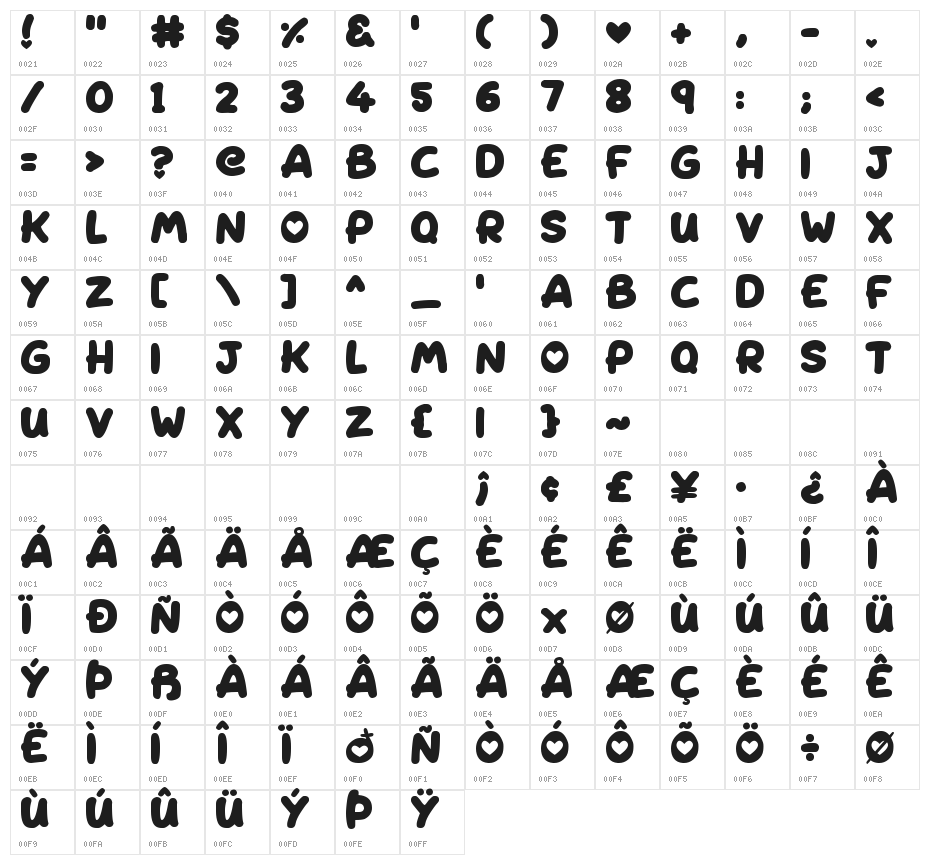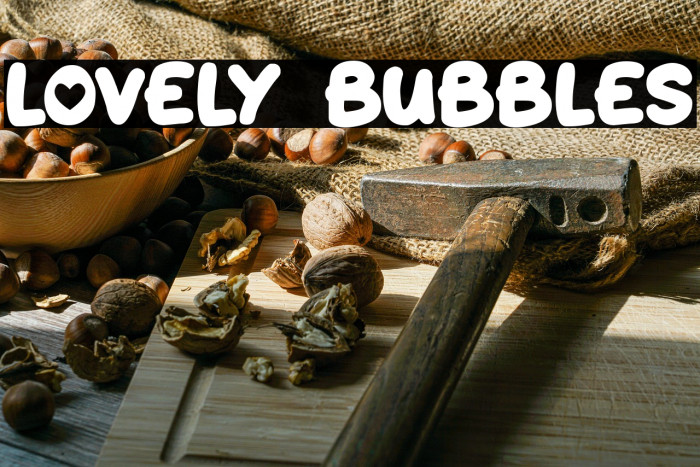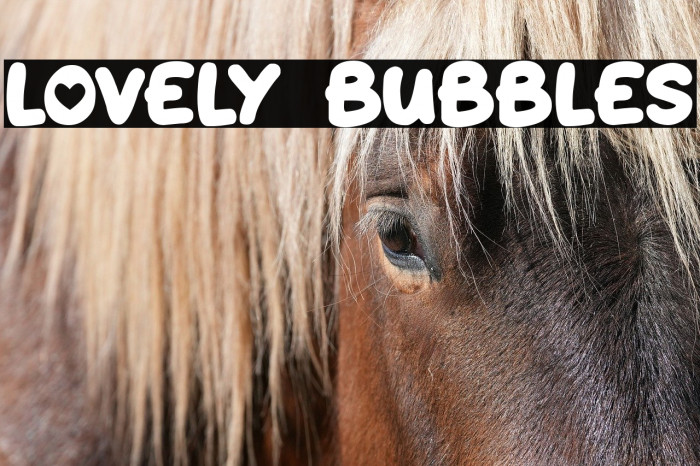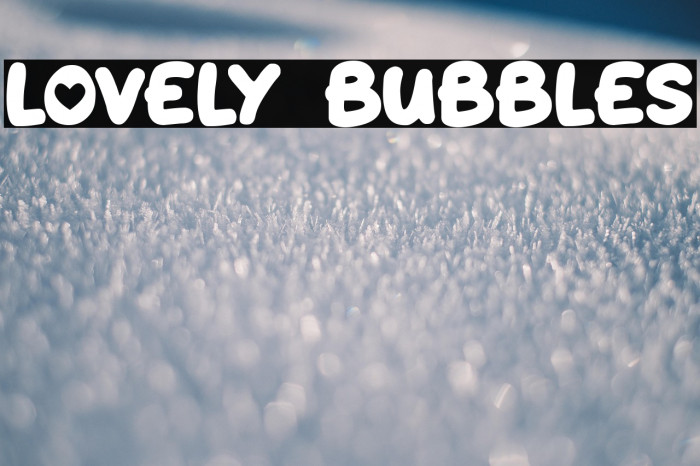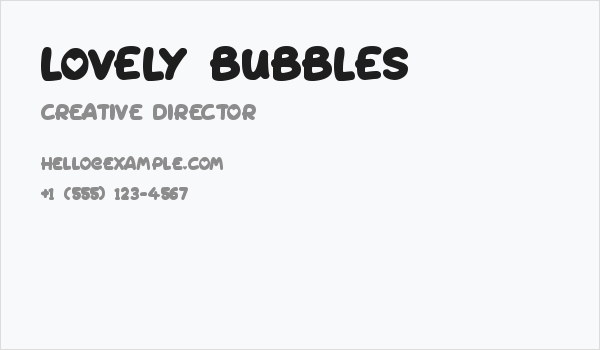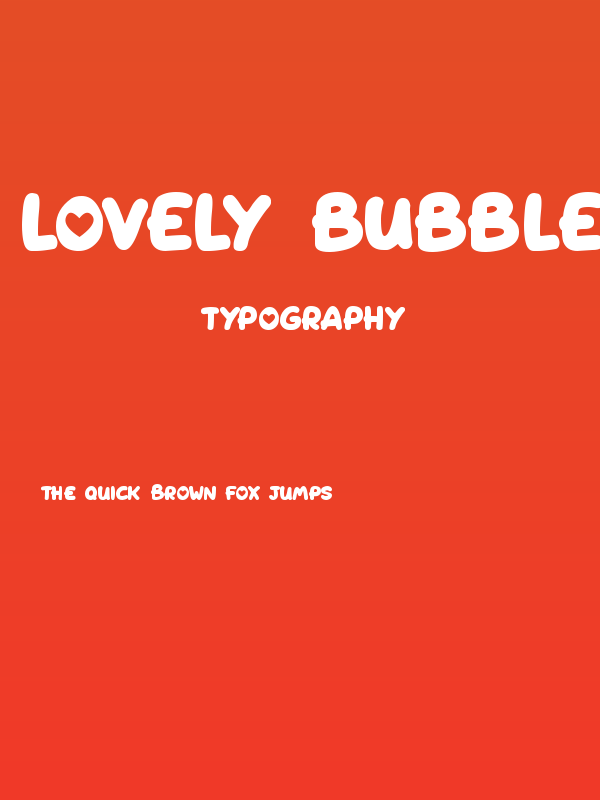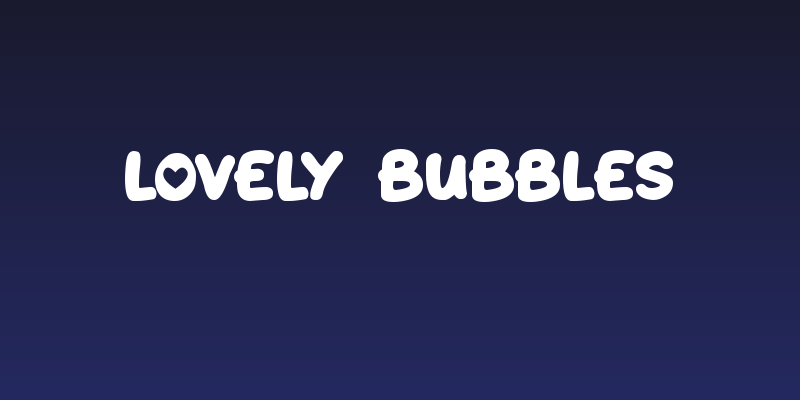
Lovely Bubbles Font
Lovely Bubbles Description
This playful and bubbly font features rounded, thick strokes that give it a friendly and approachable appearance. The characters are bold and have a uniform thickness, contributing to a cohesive and consistent look across all letters and numbers. The font includes both uppercase and lowercase letters, as well as a full set of numerals and a variety of special characters. Its whimsical style is reminiscent of hand-drawn lettering, making it ideal for projects that require a fun and informal touch. The spacing between characters is relatively tight, which enhances its compact and dense appearance. This font is perfect for designs that aim to convey a sense of joy and playfulness.
| Proposed Projects | Ideal for children's books, playful branding, party invitations, and casual social media graphics. |